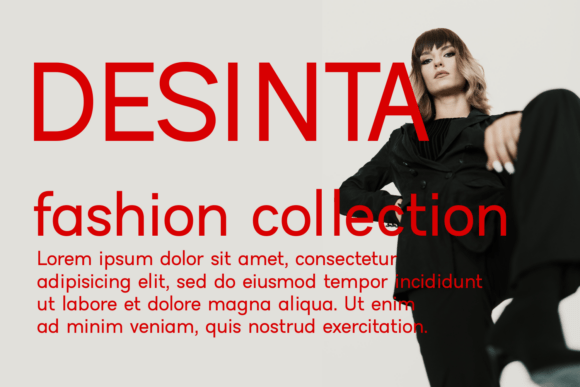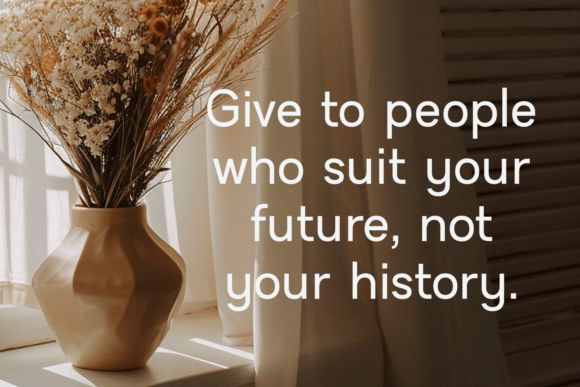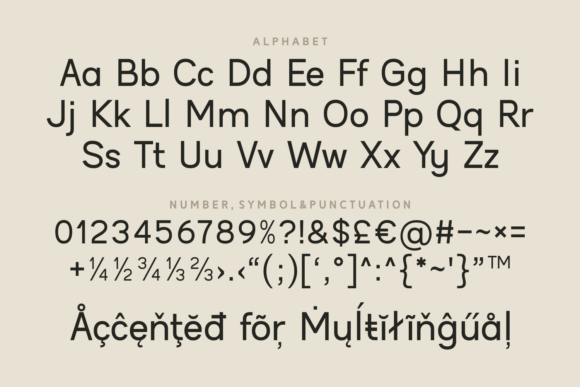
Introducing Exaited Font: The Epitome of Modern Sans Serif Elegance
In the realm of typography, few fonts manage to strike a balance between form and function as effortlessly as Exaited. This sleek modern sans serif font is the embodiment of minimalism and clarity, making it an indispensable tool for designers and crafters aiming to elevate their projects. With its clean lines, generous spacing, and subtle geometric structure, Exaited is perfect for creating polished branding, elegant editorial layouts, and modern web designs that exude professionalism and style.
The Design Philosophy Behind Exaited
Exaited’s design philosophy revolves around simplicity and legibility. In an era where digital media dominates, the font’s creators aimed to craft a typeface that would cut through the noise, offering a breath of fresh air with its uncluttered and straightforward aesthetic. Each letterform in Exaited has been meticulously designed to ensure that it communicates clearly and efficiently, regardless of the medium – be it on a website, in a magazine, or on a product label.
Key Features of Exaited Font
- Clean Lines: Exaited’s sleek lines contribute to its modern appeal, making it instantly recognizable and memorable.
- Generous Spacing: The font’s spacious design ensures excellent readability, even at smaller sizes, which is particularly beneficial for web and mobile applications.
- Subtle Geometric Structure: A hint of geometric precision adds a layer of sophistication to Exaited, distinguishing it from more generic sans serif fonts.
- Versatility: Exaited’s neutral yet stylish appearance makes it highly versatile, suitable for a wide range of applications from corporate branding to creative projects.
Applications of Exaited Font
Exaited’s adaptability and aesthetic appeal make it an excellent choice for various design projects:
- Branding: Create a lasting impression with Exaited’s polished and professional look, ideal for logos, business cards, and brand guidelines.
- Editorial Layouts: Elevate your publications with Exaited’s elegant and readable design, perfect for magazines, newspapers, and digital content.
- Web Design: Enhance user experience with Exaited’s modern and clean aesthetic, suitable for website headers, body text, and interface elements.
Why Choose Exaited?
In a market saturated with trendy fonts, Exaited stands out for its timeless appeal. It is not just a font; it’s a statement of elegance and professionalism. Here are a few reasons why designers and crafters are gravitating towards Exaited:
- Timeless Professionalism: Exaited brings a level of sophistication that never goes out of style, ensuring your designs remain relevant for years to come.
- Effortless Style: Achieve a high-end look without compromising on readability or versatility, making Exaited a go-to for projects that demand both form and function.
- Easy to Read: Its clear and spacious design makes Exaited highly legible across various mediums, from digital screens to print.
Exaited font is a masterclass in modern sans serif design, combining the principles of minimalism with the demands of contemporary aesthetics. Its versatility, readability, and timeless elegance make it an invaluable asset for designers and crafters looking to leave a mark. Whether you’re building a brand, crafting an editorial masterpiece, or designing a website, Exaited offers the perfect blend of style and substance to elevate your projects to new heights.